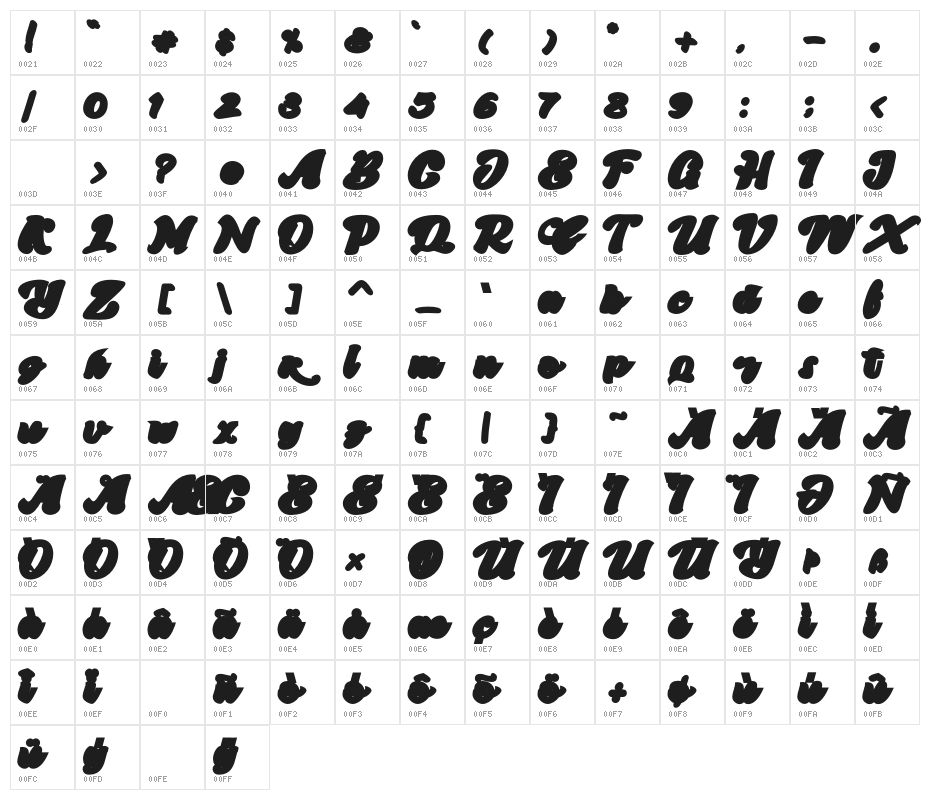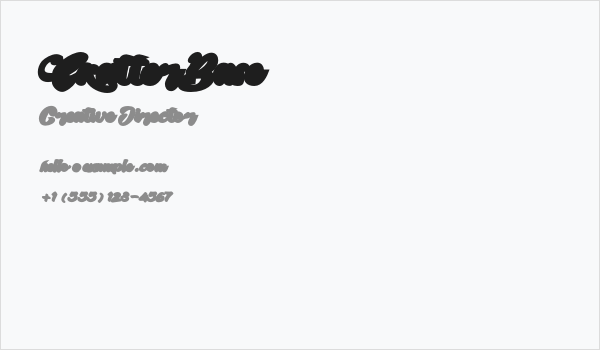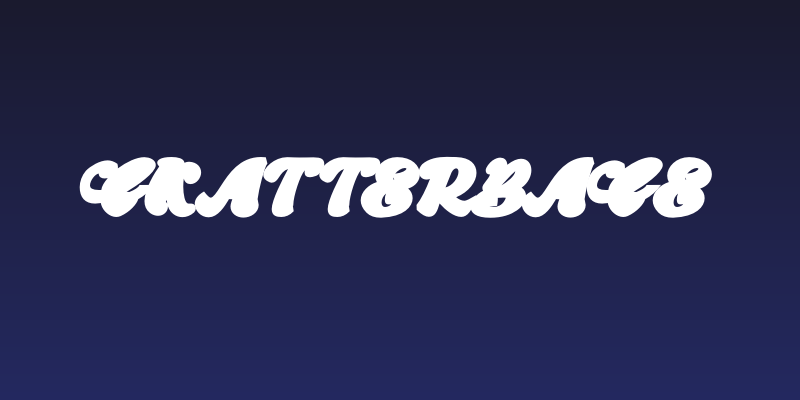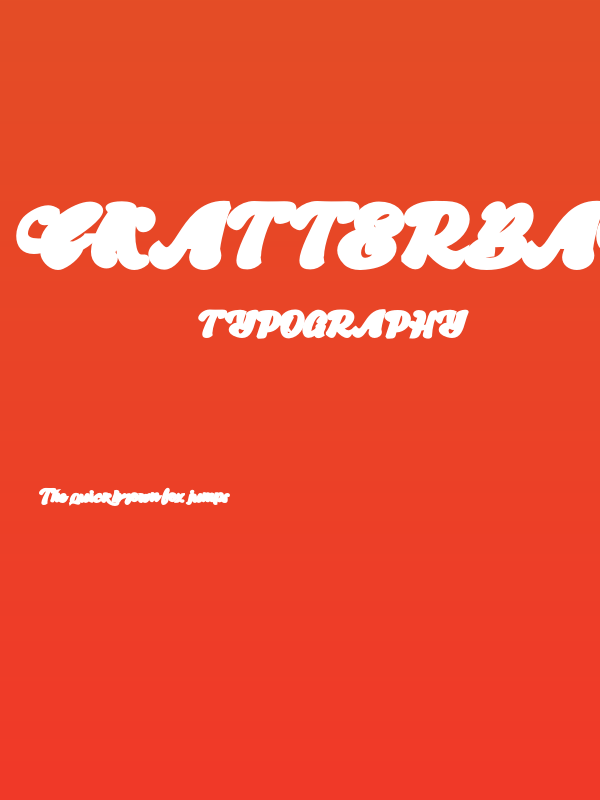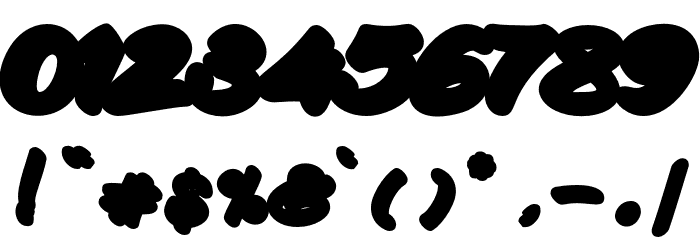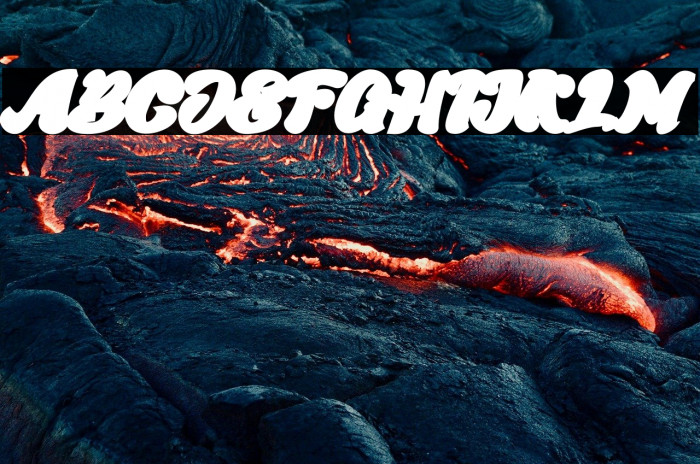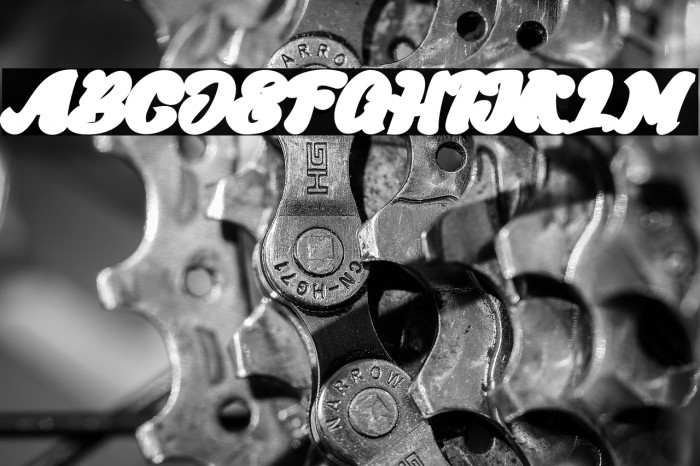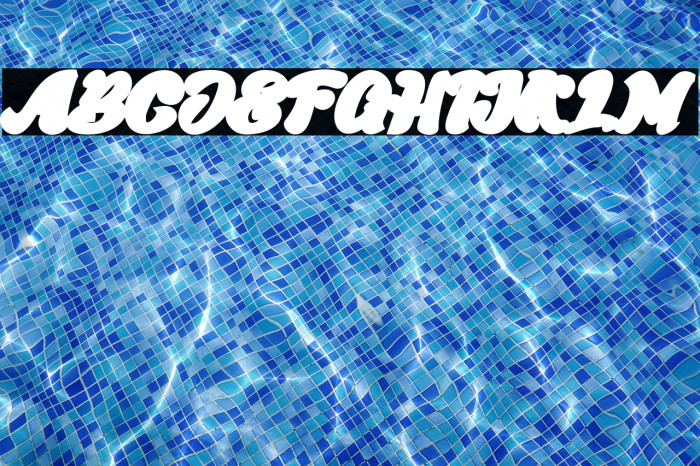
SkatterBase Font
SkatterBase Description
This font features a bold and dynamic script style with a strong presence. The characters are interconnected, creating a flowing and cohesive look. The strokes are thick and rounded, giving it a playful and energetic feel. The uppercase and lowercase letters maintain a consistent style, while the numbers and special characters complement the overall design. This font is ideal for projects that require a lively and eye-catching typeface.
| Proposed Projects | Perfect for branding, posters, and social media graphics that need a bold and lively touch. |